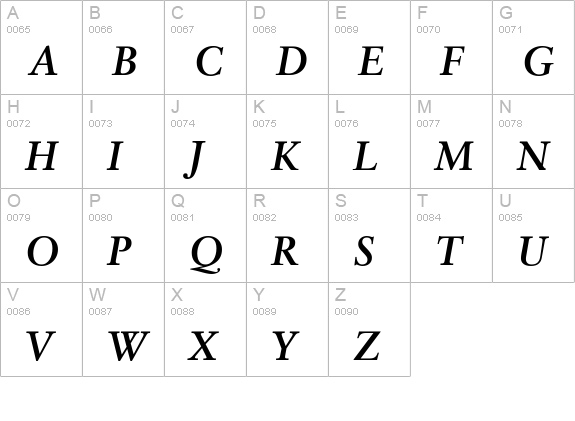
Garamond Retrospective SSi Bold Italic Font Details
Garamond Retrospective SSi Bold Italic is a strong, high-contrast, italic variant in the Garamond typeface family \xE2\x80\x94 well suited to headlines, attention-grabbing titles, and strong calls-to-action.
Introducing Garamond Retrospective SSi Bold Italic, a timeless font that effortlessly blends classic elegance with a modern twist. This exquisite typeface pays homage to the renowned Garamond style, renowned for its refined beauty and enduring popularity. Bold and italicized, Garamond Retrospective SSi Bold Italic commands attention with its confident strokes and graceful curves. Each letter is meticulously crafted, exuding a sense of sophistication and professionalism that is perfect for any project requiring a touch of timeless charm. With its versatile nature, Garamond Retrospective SSi Bold Italic is ideal for a wide range of applications. From elegant invitations and wedding stationery to high-end branding and logo design, this font effortlessly elevates any project to new heights of refinement. What sets Garamond Retrospective SSi Bold Italic apart is its availability as a free download at FontsMarket.com. Embracing the spirit of accessibility and inclusivity, this font allows designers, creatives, and enthusiasts of all backgrounds to freely access and utilize its exceptional beauty. Whether you are a seasoned professional or an aspiring designer, Garamond Retrospective SSi Bold Italic is sure to inspire and captivate. Its timeless appeal and freely available download make it the perfect choice for those seeking to add a touch of elegance and sophistication to their typographic creations. Don't miss out on this remarkable font – visit FontsMarket.com today to experience the allure of Garamond Retrospective SSi Bold Italic.